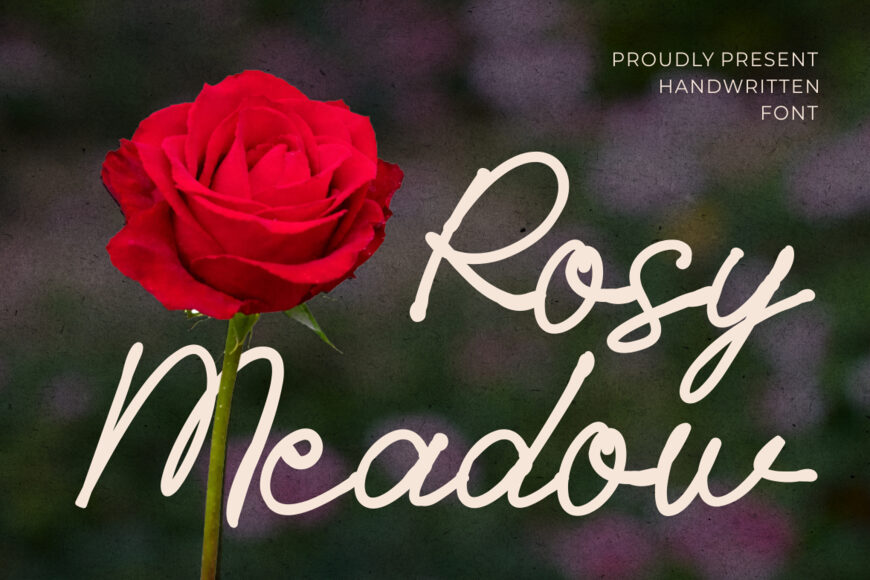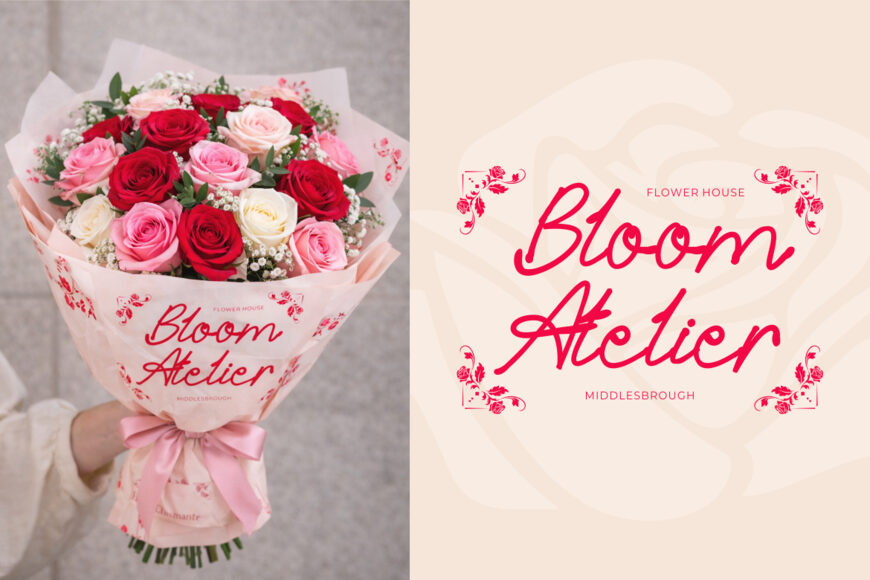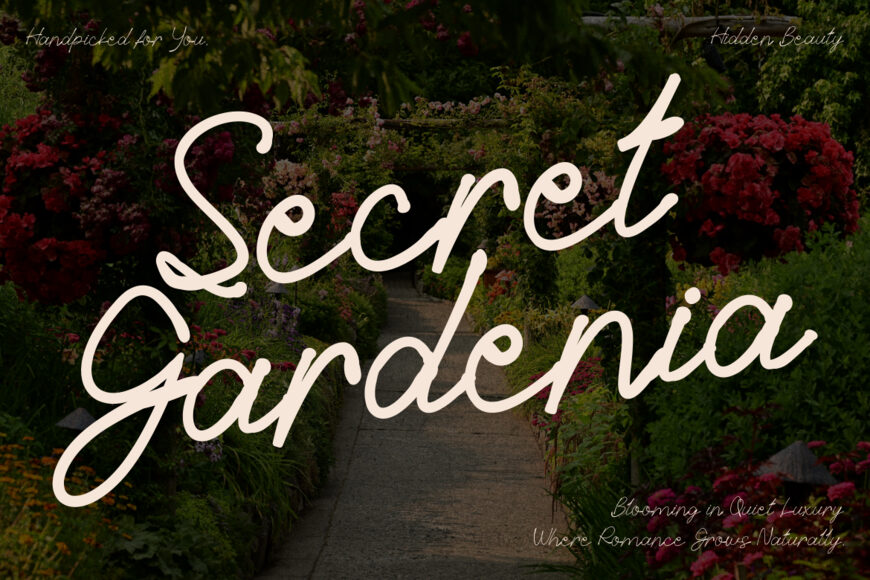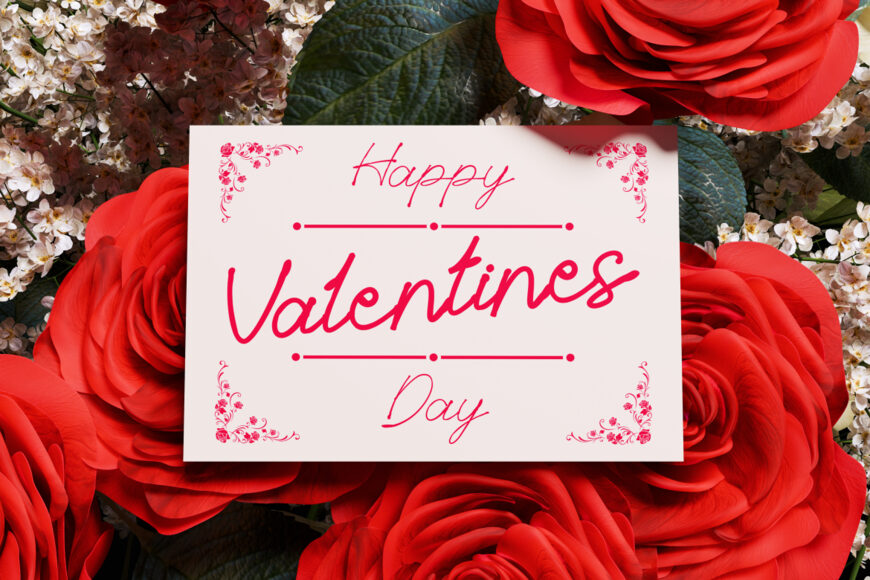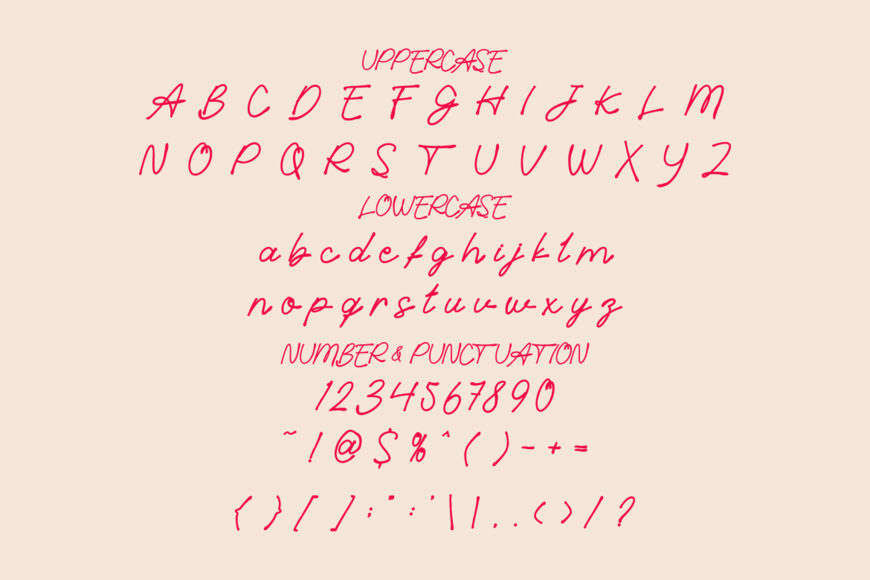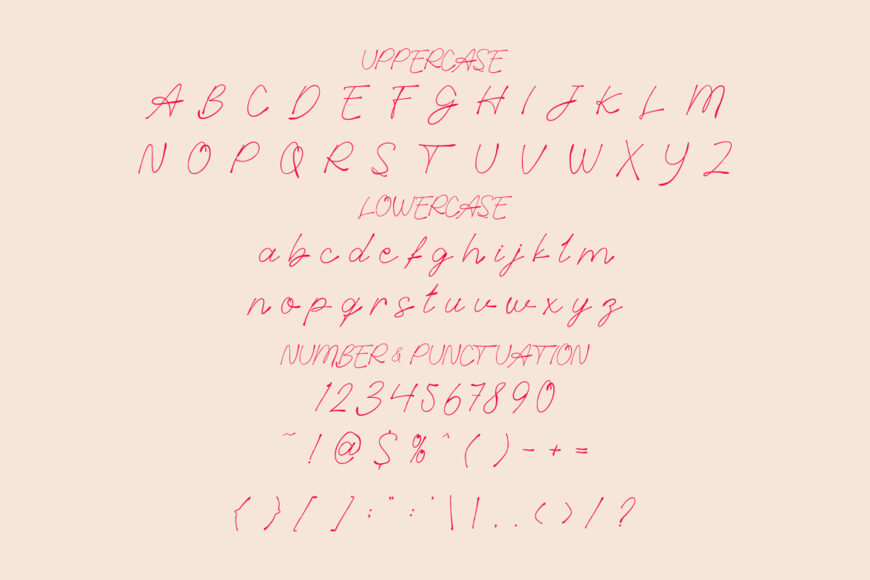
Rosy Meadow is a handwritten script font defined by fluid monoline strokes, elegant curves, and naturally joined letters. Its airy forms, extended swashes, and rounded details create a warm, graceful rhythm, while medium-sized characters remain clear and readable.
Combining contemporary romance with authentic personality, it works beautifully for wedding identities, floral shops, beauty packaging, and gift brands. Use it on invitations, cards, quotes, tags, posters, magazine covers, and more. Its gentle, expressive style brings feeling to names, phrases, and signature-inspired designs.